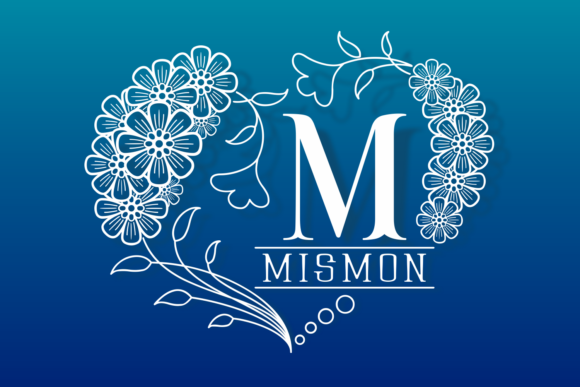
Behold the splendor of Mismon Font, an exquisite creation from the artistic minds at 7NTypes. This decorative font exudes a timeless elegance, captivating hearts with its graceful curves and delicate strokes. Mismon is more than just a font; it's an artistic expression waiting to be unleashed onto your creative projects.
Imagine the allure of your book's tagline, emblazoned in the enchanting Mismon font. It possesses an inherent charm that will allure readers, enticing them to delve into the depths of your literary world. Its soft edges and flowing lines cradle each word, creating a visual symphony that dances across the page.
Mismon is not merely a font; it's a gateway to a realm of endless possibilities. Let it infuse your wedding invitations with a touch of ethereal beauty. Picture the joy on the faces of your loved ones as they receive these enchanting invitations, each one a testament to the love and care you've poured into your special day.
The versatility of Mismon extends beyond these traditional uses. Unleash your creativity and let Mismon adorn your graphic designs, posters, and branding materials. Its delicate strokes will evoke a sense of sophistication, leaving an unforgettable impression on your audience.
Mismon is more than just a font; it's an extension of your creative vision. It's the perfect companion for those who seek to infuse their projects with a touch of elegance and timeless charm. Embrace the allure of Mismon and watch as your creations bloom with beauty.